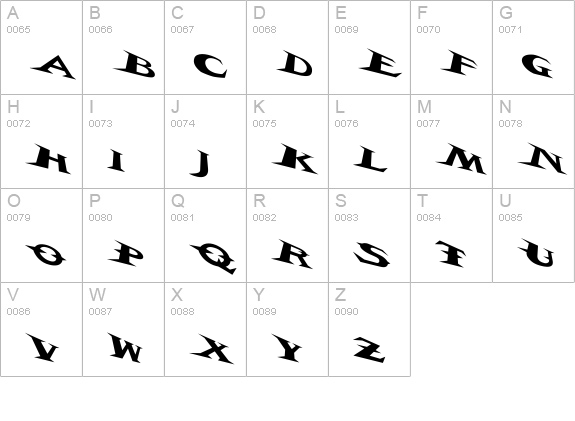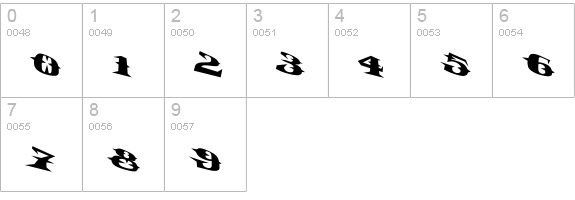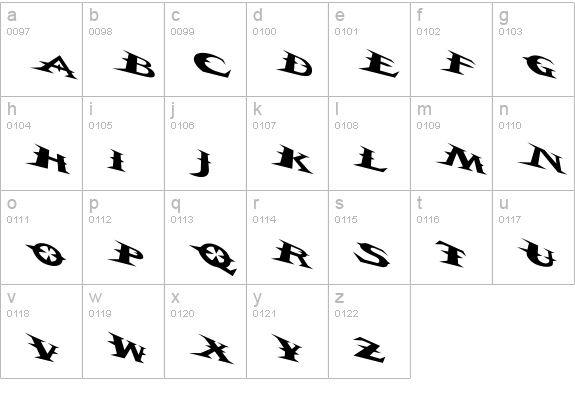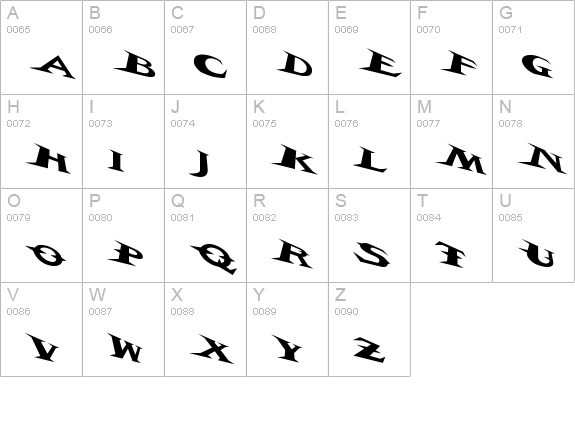
VTCBelialsBladeTricked Font Details
VTCBelialsBladeTricked is a captivating and edgy font that exudes a sense of mystery and intrigue. Its unique design combines sharp edges with subtle curves, creating a visually striking aesthetic that is sure to catch attention. The bold and assertive letterforms of this font make it perfect for headlines, logos, and any design project that requires a touch of boldness. This font is not only visually impressive but also incredibly versatile. Whether you're creating a dark and gothic poster, a modern and sleek website, or a captivating book cover, VTCBelialsBladeTricked will add a touch of sophistication and uniqueness to your design. And the best part? It's free! Yes, you heard that right. This amazing font is freely available to download at FontsMarket.com. So, you can enhance your creative projects without any additional cost. Don't miss out on this opportunity to elevate your designs with VTCBelialsBladeTricked. Download it now from FontsMarket.com and let your imagination run wild. Get ready to make a bold statement with this extraordinary font that is sure to leave a lasting impression.